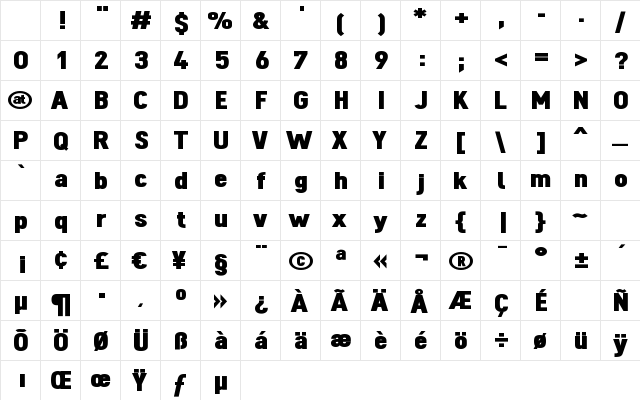
Complete Dinova Black glyph index. Displaying only characters natively supported by Dinova Black font.
Dinova is a composed and adaptable typeface that performs quietly and consistently across a wide range of design contexts.